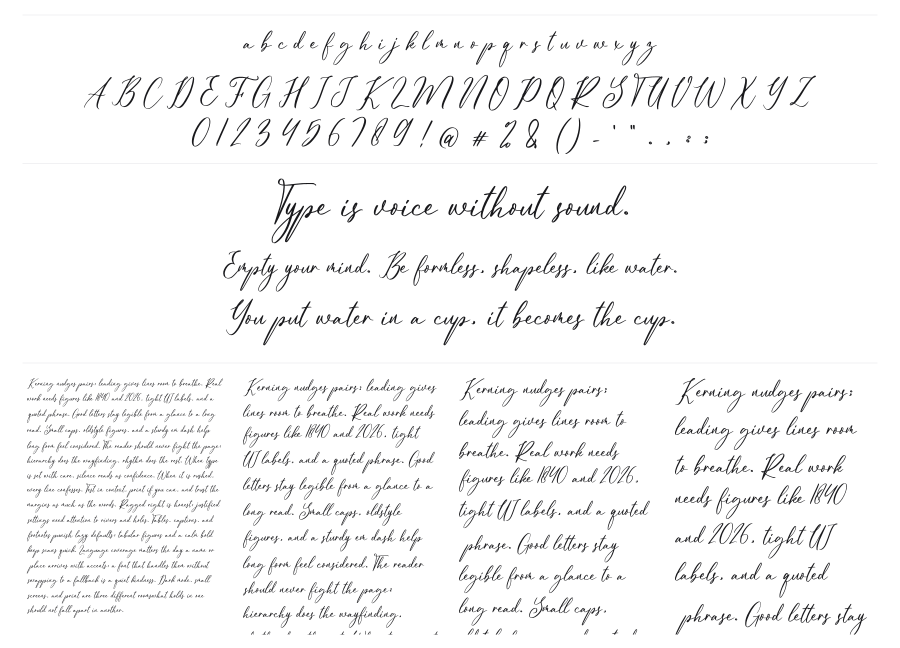
Alexanna
Alexanna is a flowing casual script from Fatma Studio with graceful loops, generous descenders, and a breezy hand-lettered feel. The light, airy strokes and confident italic slant give it a romantic quality without feeling overly formal. It works well at large sizes for logos, invitations, and packaging where a personal, handcrafted touch is the point.